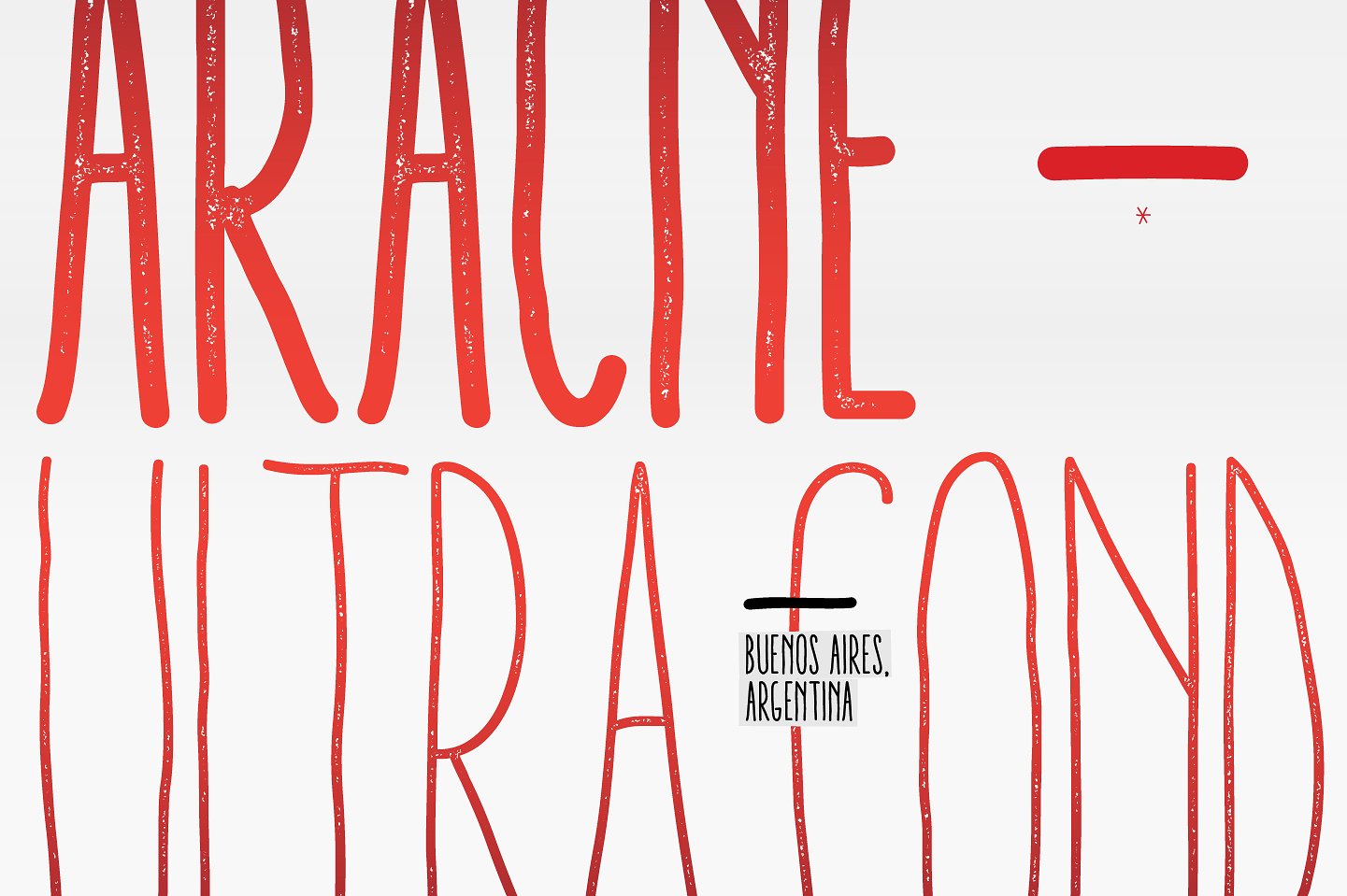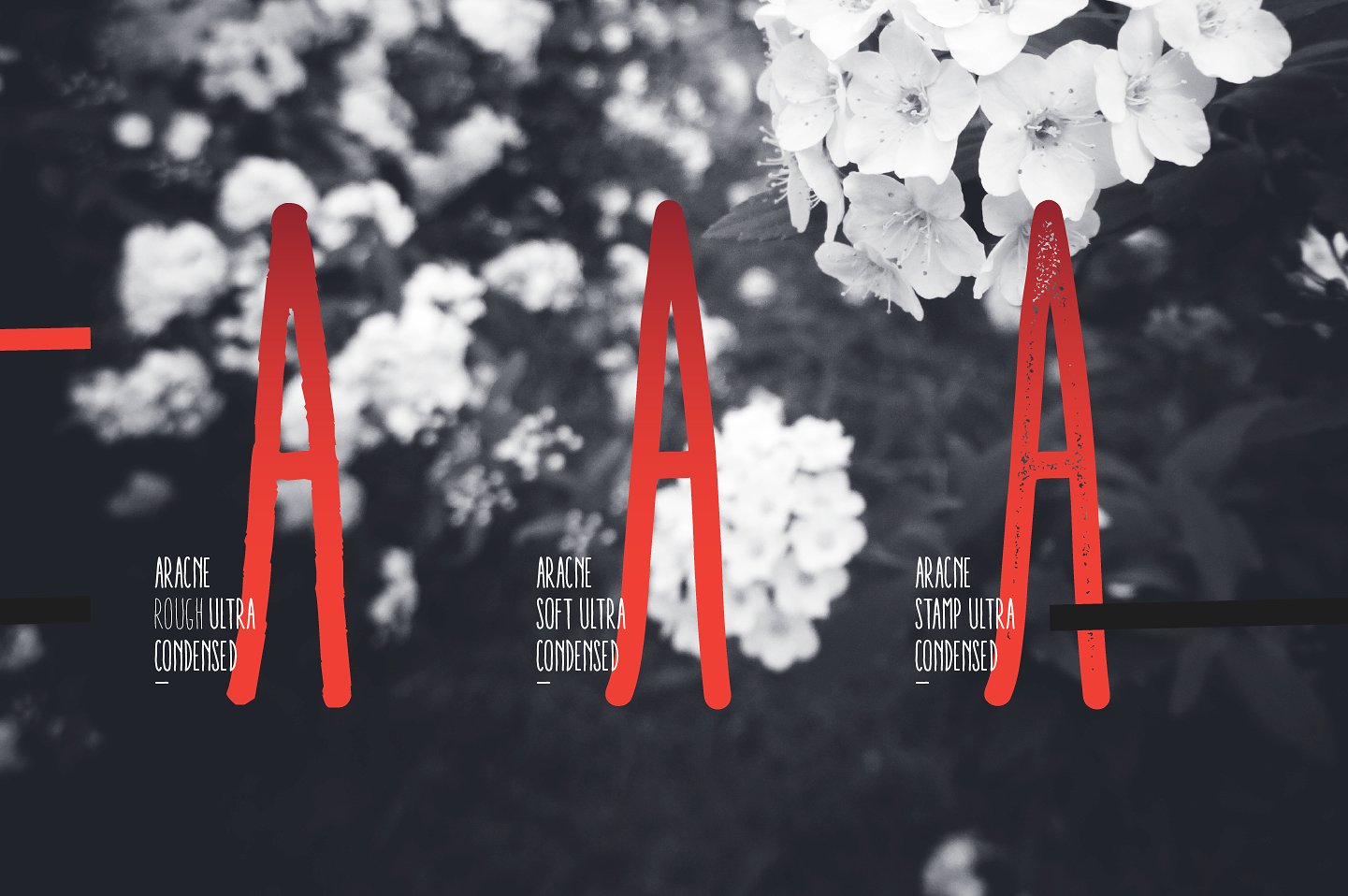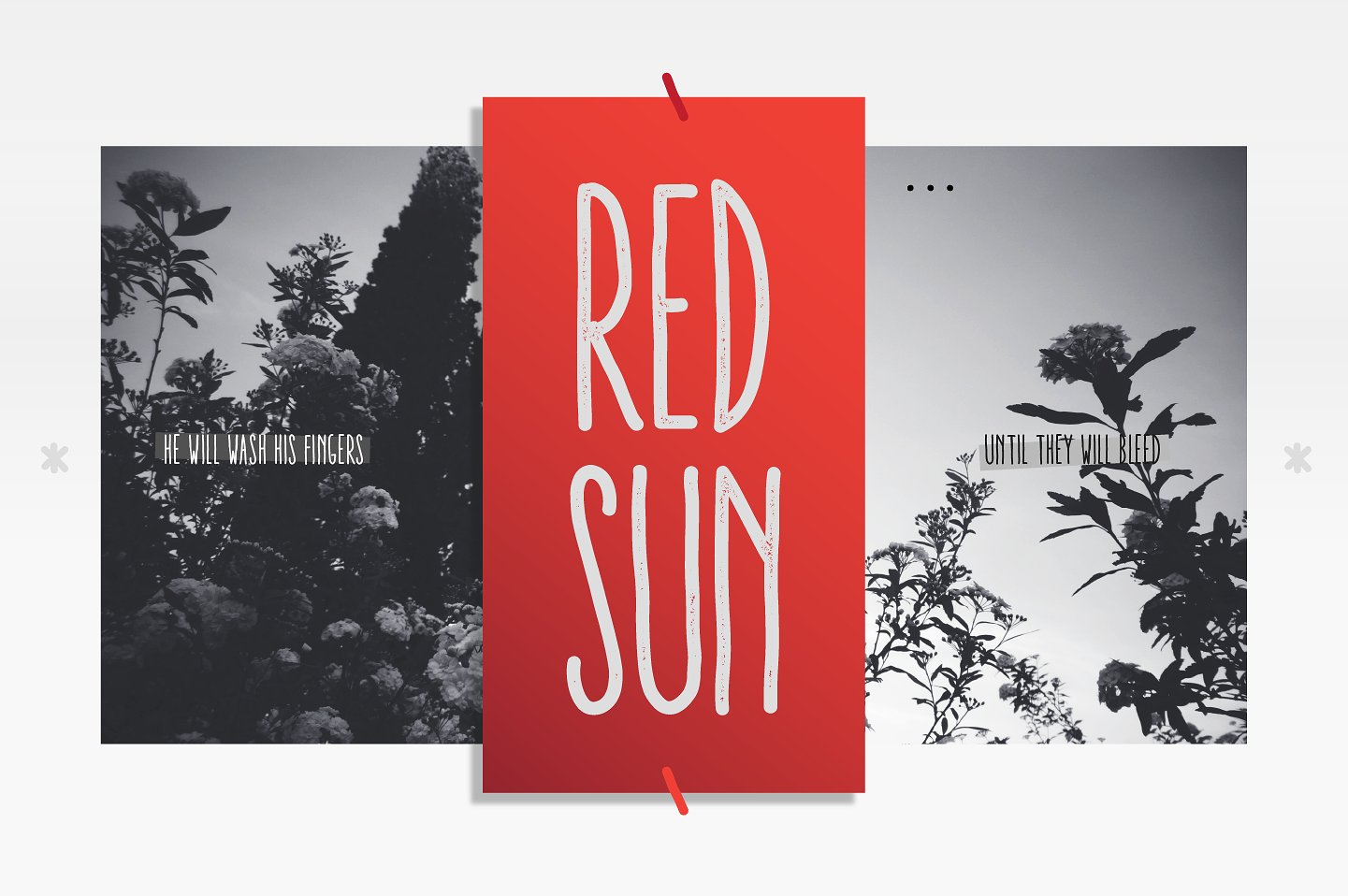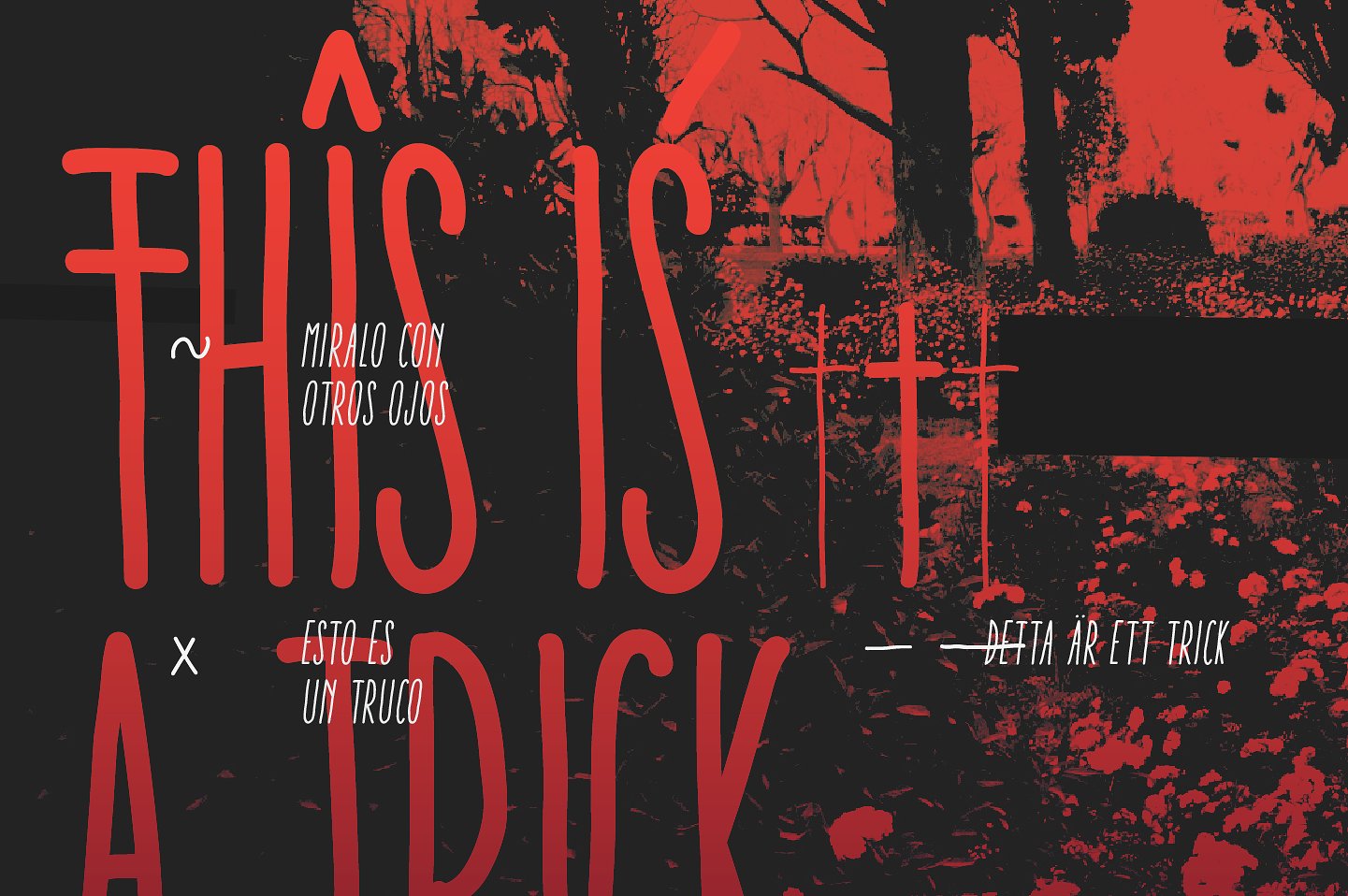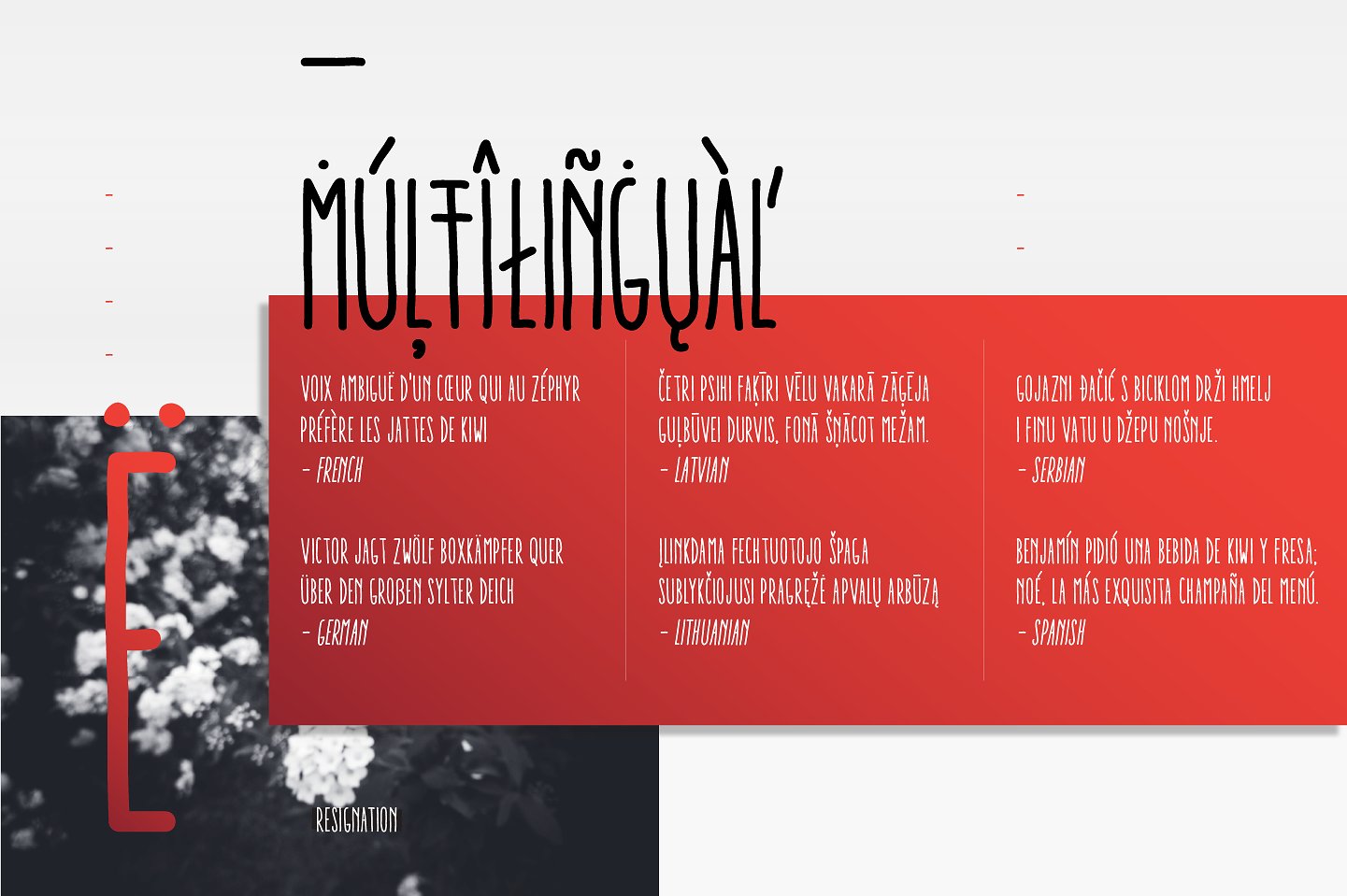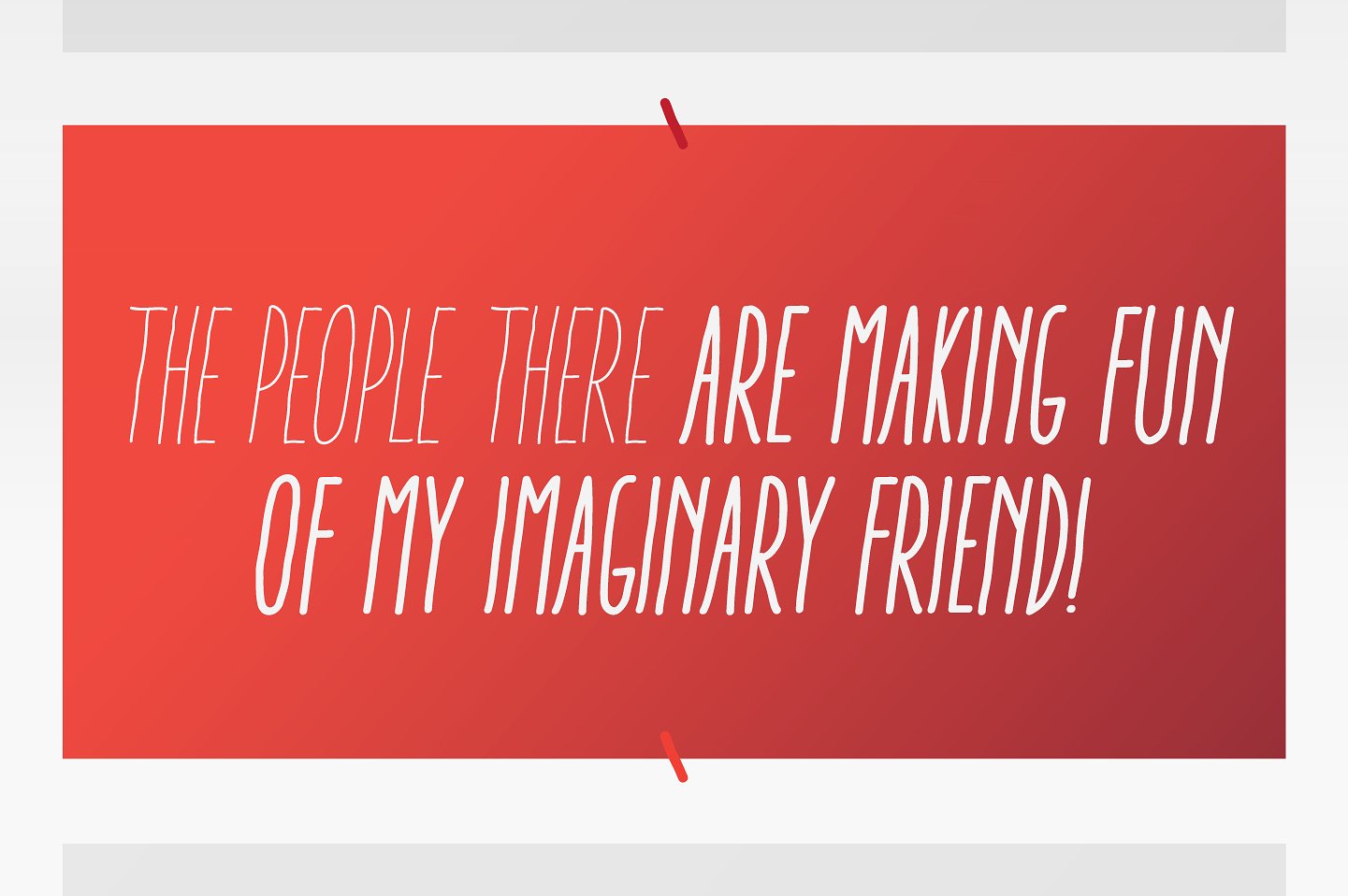
Aracne Ultra Condensed Font: Elevate Your Designs with a Relaxed, Handwritten Flair
In the realm of typography, the right font can make or break a design. For those seeking a unique, casual, and handwritten touch, Aracne Ultra Condensed is an excellent choice. As the even more condensed sister font of Aracne and Aracne Condensed, Aracne Ultra Condensed offers a distinctive flair that can elevate both digital and print projects.
The Genesis of Aracne Ultra Condensed
Aracne Ultra Condensed was created with the intention of providing designers and crafters with a font that embodies a relaxed, casual essence. Its development stemmed from the need for a typeface that could add a personal, handwritten feel to various projects without compromising on readability or style. This font is perfect for those looking to infuse their work with a sense of informality and approachability.
Key Features of Aracne Ultra Condensed
- Ultra Condensed Design: Aracne Ultra Condensed boasts an extremely condensed design, making it ideal for projects where space is limited but style is paramount.
- Handwritten Flair: The font retains a handwritten feel, offering a personal touch that can make any project stand out.
- Versatility: Its unique design makes it suitable for a wide range of applications, from digital media to print materials.
- Readability: Despite its condensed nature, Aracne Ultra Condensed maintains a high level of readability, ensuring that your message is conveyed effectively.
Applications of Aracne Ultra Condensed
The versatility of Aracne Ultra Condensed makes it an excellent choice for various design projects. Some of the key applications include:
- Digital Media: Use it for website headers, social media graphics, and digital advertisements to add a casual, approachable vibe.
- Print Materials: It’s perfect for brochures, posters, flyers, and business cards, where a personal touch can make a significant impact.
- Branding: Aracne Ultra Condensed can be a valuable asset in creating a unique brand identity that stands out from the crowd.
Tips for Using Aracne Ultra Condensed Effectively
To maximize the impact of Aracne Ultra Condensed in your designs, consider the following tips:
- Pair with Contrasting Fonts: Combine Aracne Ultra Condensed with more traditional or serif fonts to create visual interest and hierarchy.
- Use for Headings and Highlights: Its unique style makes it perfect for headings, titles, and highlights, adding a focal point to your designs.
- Experiment with Colors and Textures: Don’t be afraid to experiment with different colors and textures to further enhance the font’s distinctive appearance.
Aracne Ultra Condensed is a remarkable font that offers designers and crafters a unique tool for adding a relaxed, handwritten flair to their projects. Its ultra-condensed design, coupled with its readability and versatility, makes it an excellent choice for a wide range of applications. Whether you’re working on digital media, print materials, or branding, Aracne Ultra Condensed can help elevate your designs to the next level.
So, if you’re looking to infuse your work with a personal touch and a casual vibe, consider giving Aracne Ultra Condensed a try. Its distinctive style and flexibility are sure to make it a valuable addition to your design toolkit.